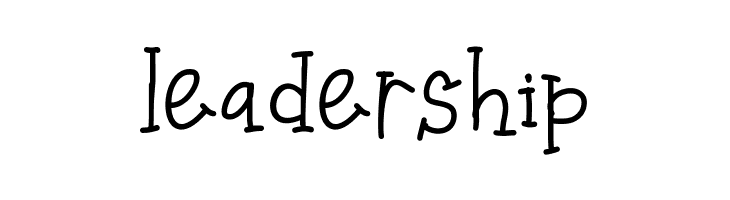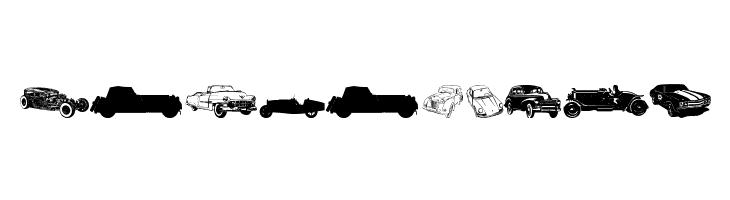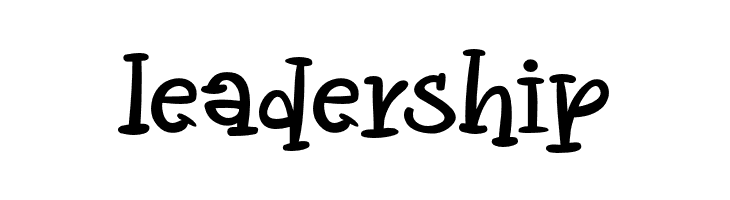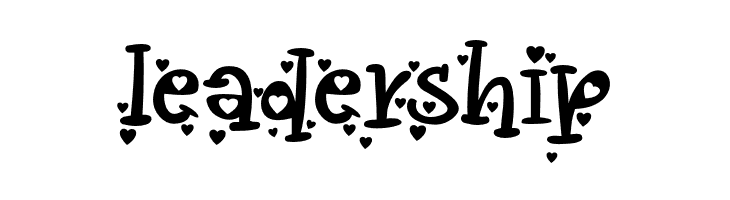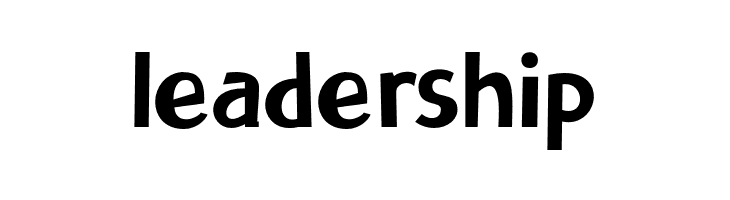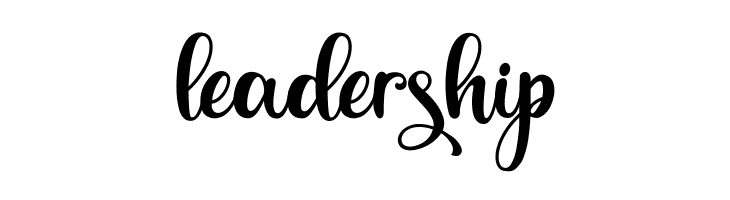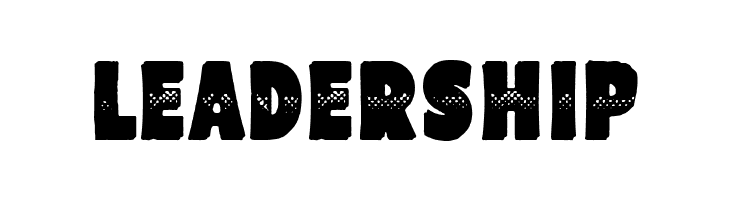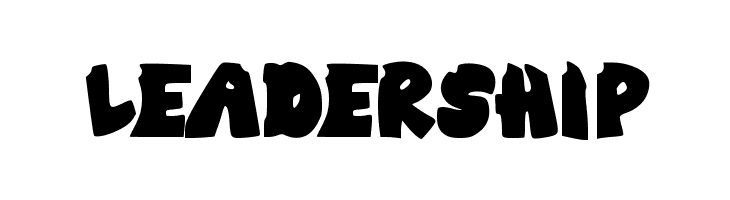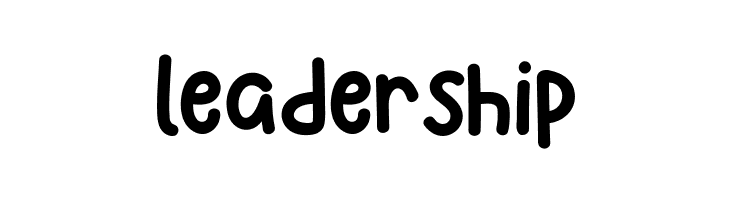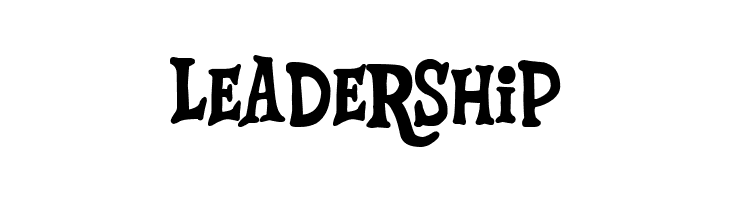
A bold, graffiti-inspired font with playful, rounded characters.
A bold, geometric font with playful and dynamic shapes.
A bold, playful font with a hand-drawn, friendly appearance.
A playful, hand-drawn font with a bold, tiki-inspired style.
An elegant script font with ornate swirls and decorative flair.
A bold, playful font with rounded edges and a whimsical style.
A playful and whimsical font with curly, rounded letterforms.
A playful, heart-embellished font perfect for romantic and creative projects.
A playful, bold font with rounded, bubbly characters and a cartoonish style.
A bold, playful font with a whimsical, hand-drawn style.
A bold, playful font with rounded edges and a bubbly appearance.
A playful, bold font with rounded, thick strokes and a whimsical style.
A playful, dripping effect font with bold, outlined characters.
A playful, handwritten font with smooth, rounded edges and a friendly appearance.
A playful and whimsical font with quirky, uneven letterforms.
A playful, rounded font with a bold and friendly style.
A playful, doodle-inspired font with bold, rounded characters and cartoonish expressions.
A playful, handwritten font with tall, narrow letters and rounded edges.
A playful, handwritten script font with smooth, rounded strokes.
A lively, handwritten font with consistent strokes and a playful style.
A playful, bold outline font with a hand-drawn appearance.
A decorative serif font with intricate line patterns and a vintage-modern appeal.
A bold, high-contrast serif font with elegant and classic features.
A carved, textured serif font with a modern twist.
A bold, cutout-style font with high contrast and geometric shapes.
An elegant outline serif font with high contrast and refined details.
A bold, angular font with a playful and dynamic style.
A bold, decorative font with unique cut-out patterns and rounded edges.
A display font with vintage car illustrations as glyphs.
A bold, playful font with a textured, dotted design and a hand-drawn aesthetic.